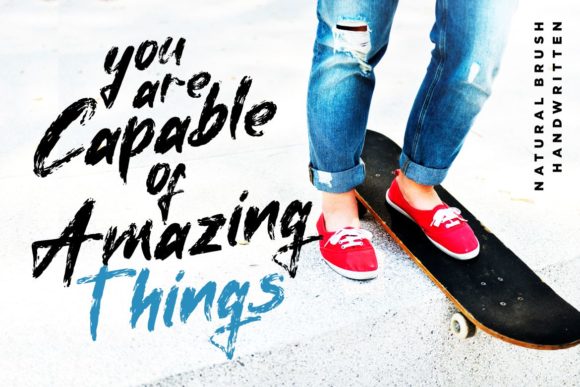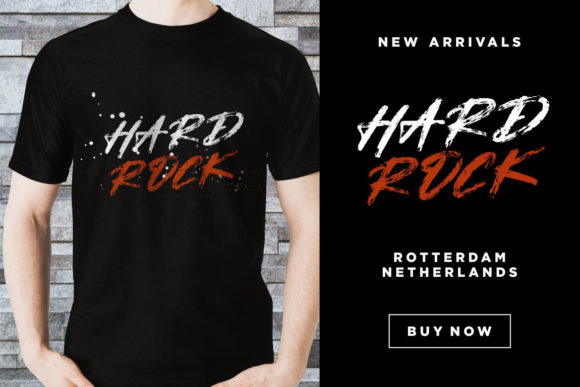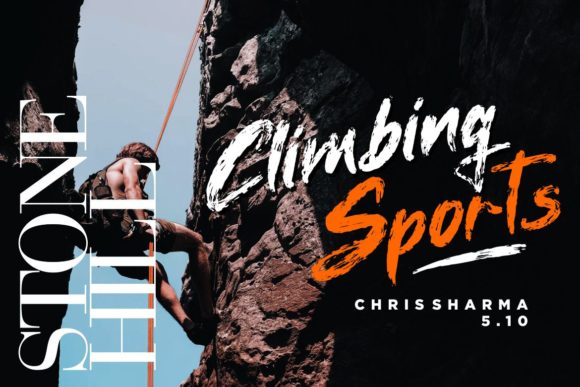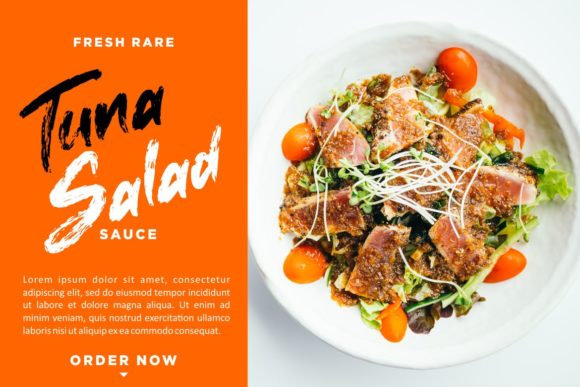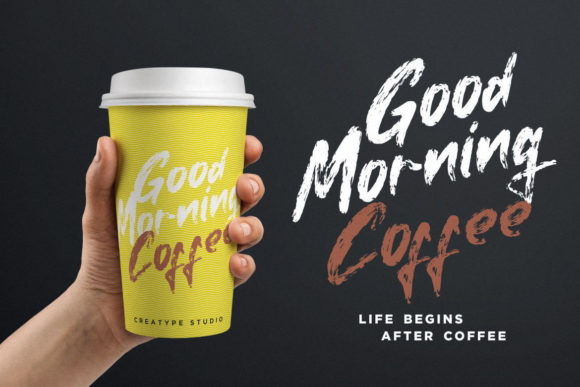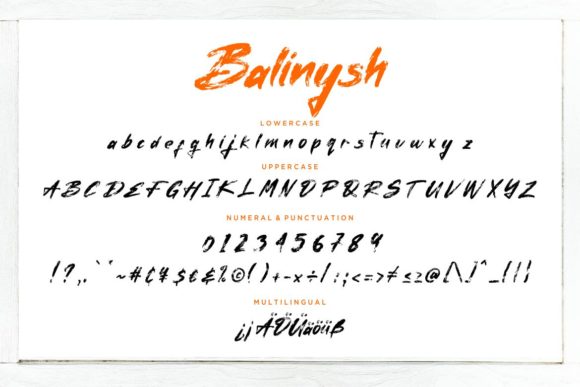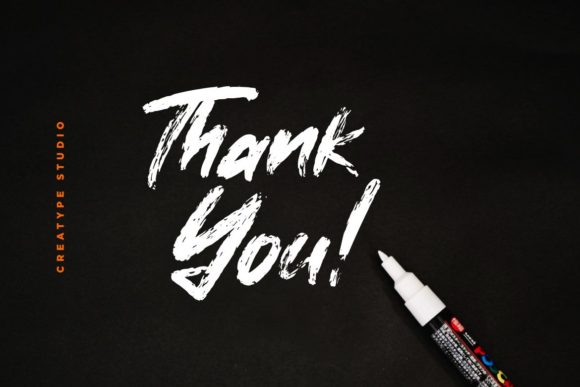
Balinysh Font
About Balinysh Font
Balinysh is a beautiful handwritten font, created with the help of a brush pen. It looks bold, yet sophisticated and features chunky and extended characters that will give a particularly adept feel when used in logos, branding, packaging design, and much more.